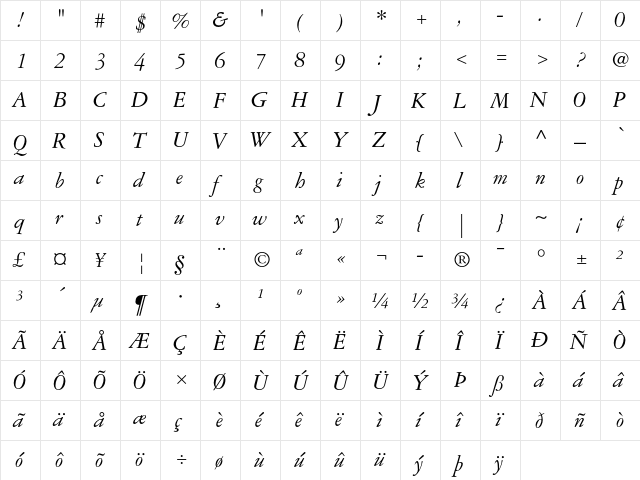
Garamond 3 Italic
Design Context for Garamond 3 Typeface
Garamond 3 takes a measured approach to typography — its balanced proportions and neutral character make it a reliable workhorse for both digital and print work. The slanted form adds forward momentum and visual energy.
Pro Tip: Use Garamond 3 for emphasis, pull quotes, and subheadings where its slanted energy can add rhythm to the layout.